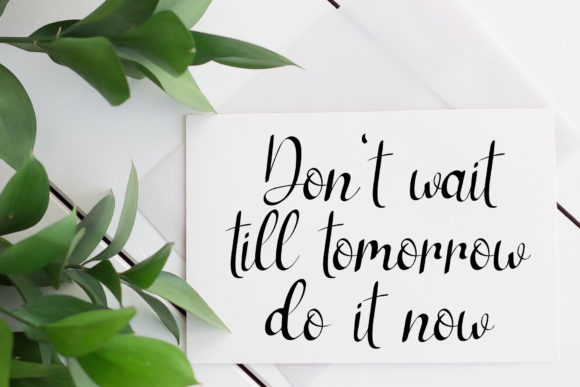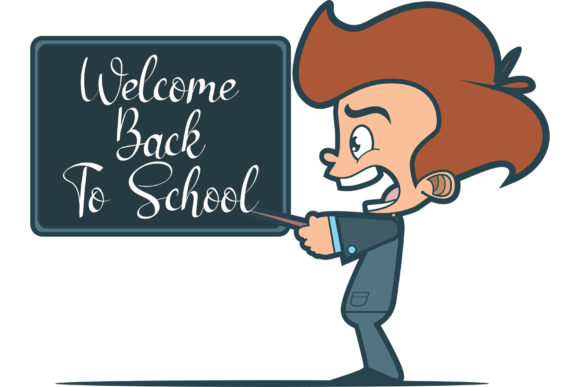
Special Xerography Font
db-ku.com - Script & Handwritten -- Special Xerography is a magical script font carefully created with a touch of elegance. Whether you’re looking for fonts for Instagram or calligraphy scripts for DIY projects, this font will turn any creative idea into a true piece of art!